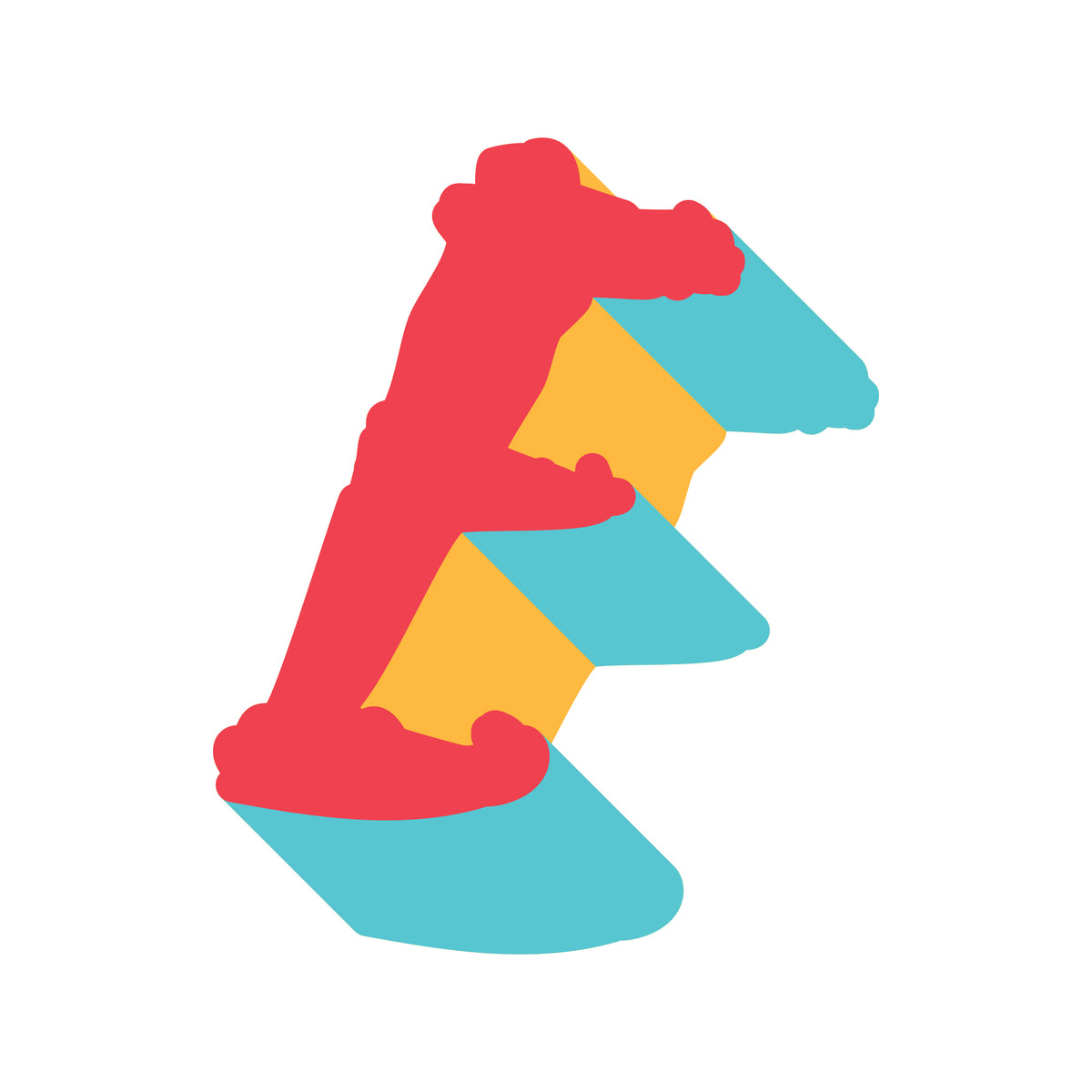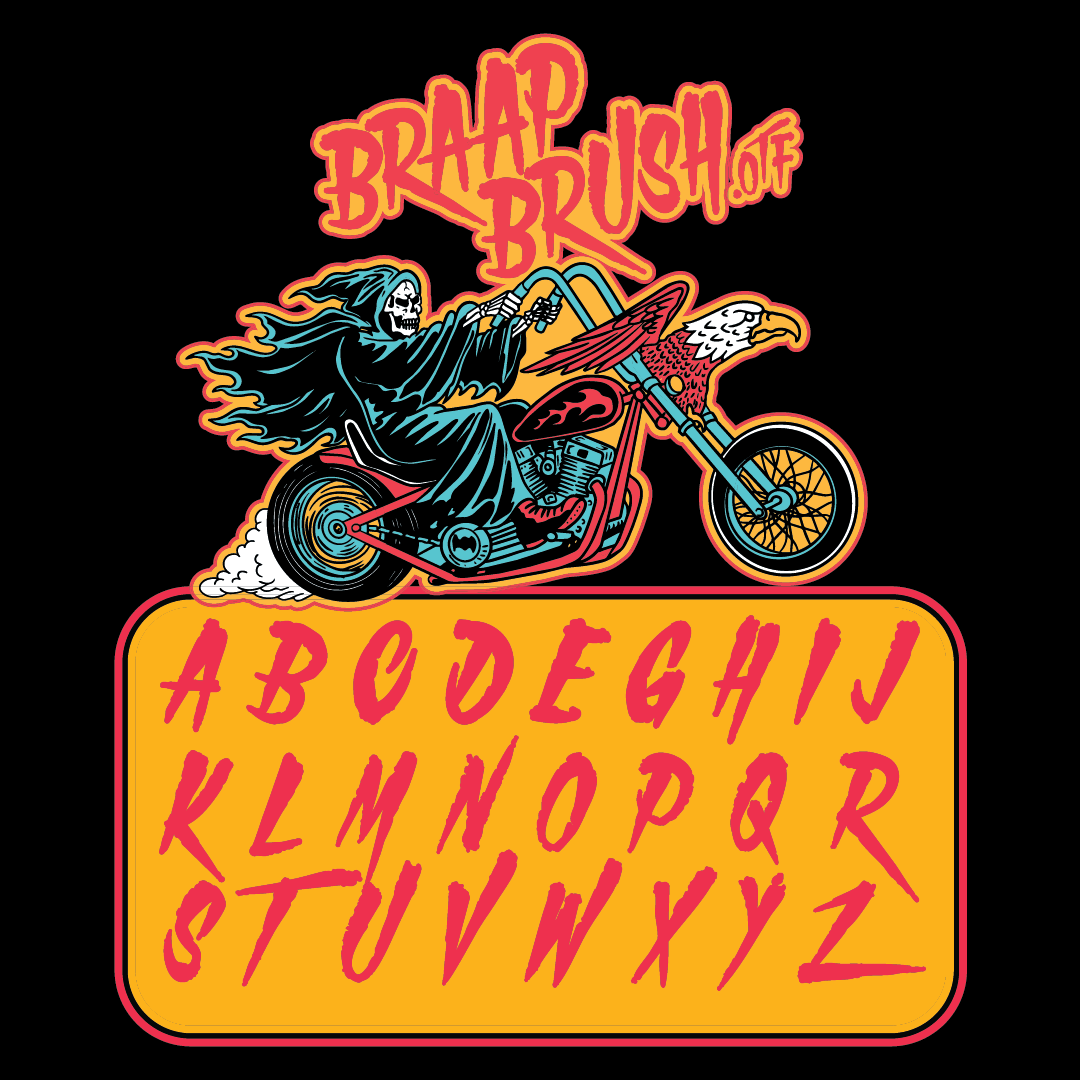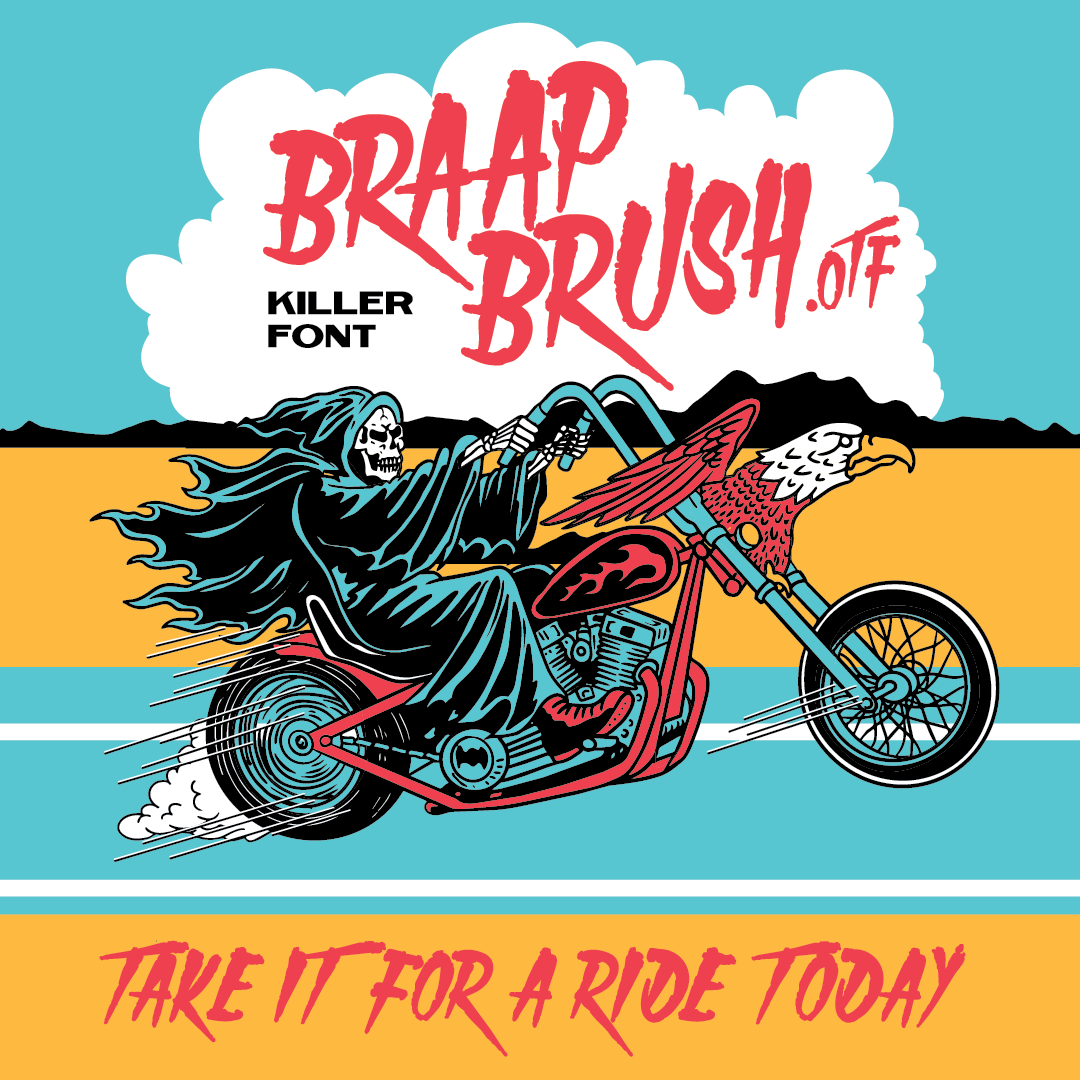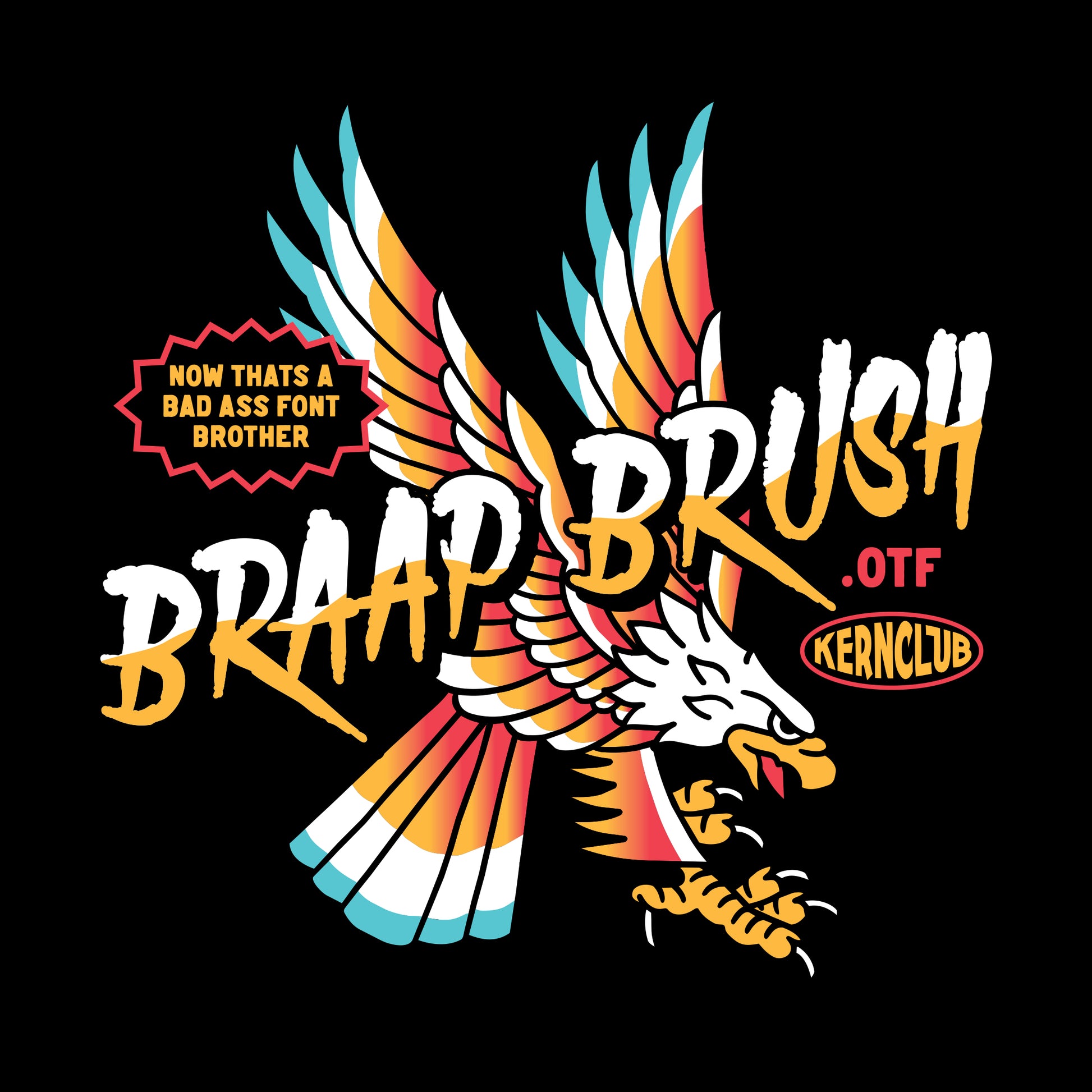
Braap Brush Font
BRAAP Brush is a moto-inspired display font with a raw, hand-drawn brush feel. Perfect for motorcycle graphics, but badass enough to add grit to any design.
Braap definition: “Braap” is the word used to imitate the loud, sharp sound of a motorcycle engine.